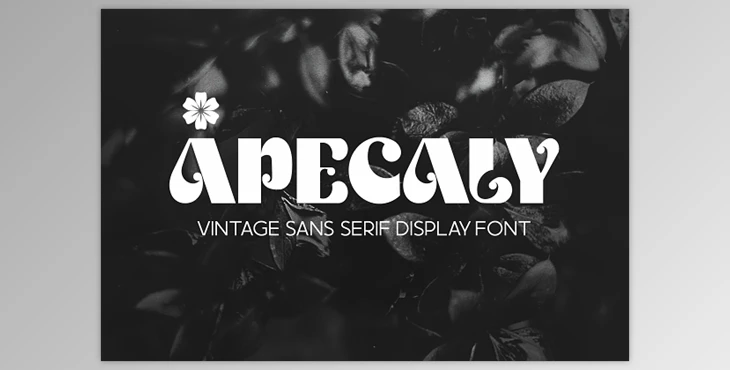
Apecaly - Vintage Font CreativeMarket 7446979: The font is called Apecaly Apecaly, a classic elegant, sophisticated, and timeless font. Its distinctive and gorgeous appearance. This is the perfect font for those who require a typeface to use for logos, magazine brochures, social media, and more.
Some great features of Apecaly - Vintage Font:
- Uppercase
- Numerics